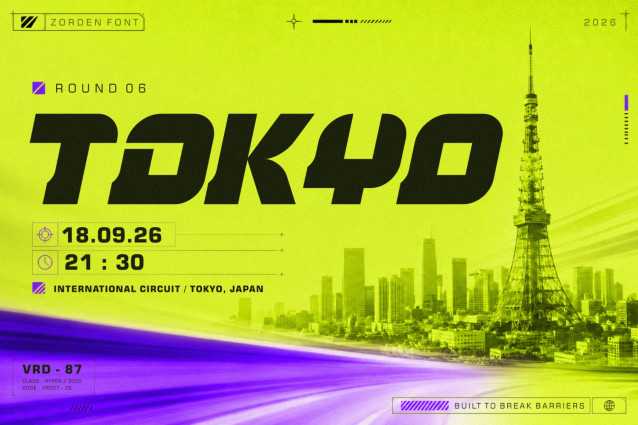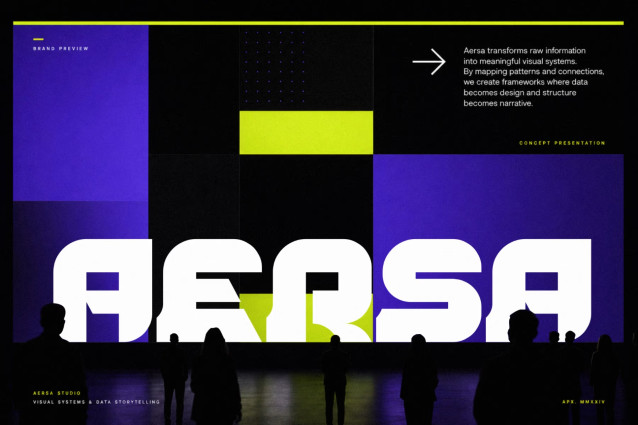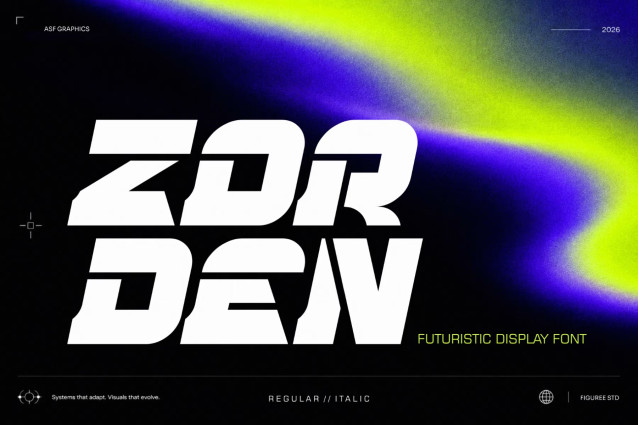
Zorden Futuristic Display Font
Zorden is a futuristic display font created for designers who want typography to become an active part of the visual concept. With a contemporary, future-facing personality, Zorden is a strong choice for projects connected to technology, gaming, digital culture, entertainment, modern branding, and experimental visual communication.
Instead of letting headlines disappear into the background, Zorden helps typography take a more prominent role in the composition. It works especially well when the type needs to establish the mood immediately, whether you are building a brand identity, developing a poster, creating promotional graphics, or designing content for a digital campaign.
Zorden comes in Regular and Italic styles, giving designers two directions to work with across a single visual system. Use the Regular style when you want a confident foundation, then introduce Zorden Italic when a composition needs more movement, contrast, or hierarchy.